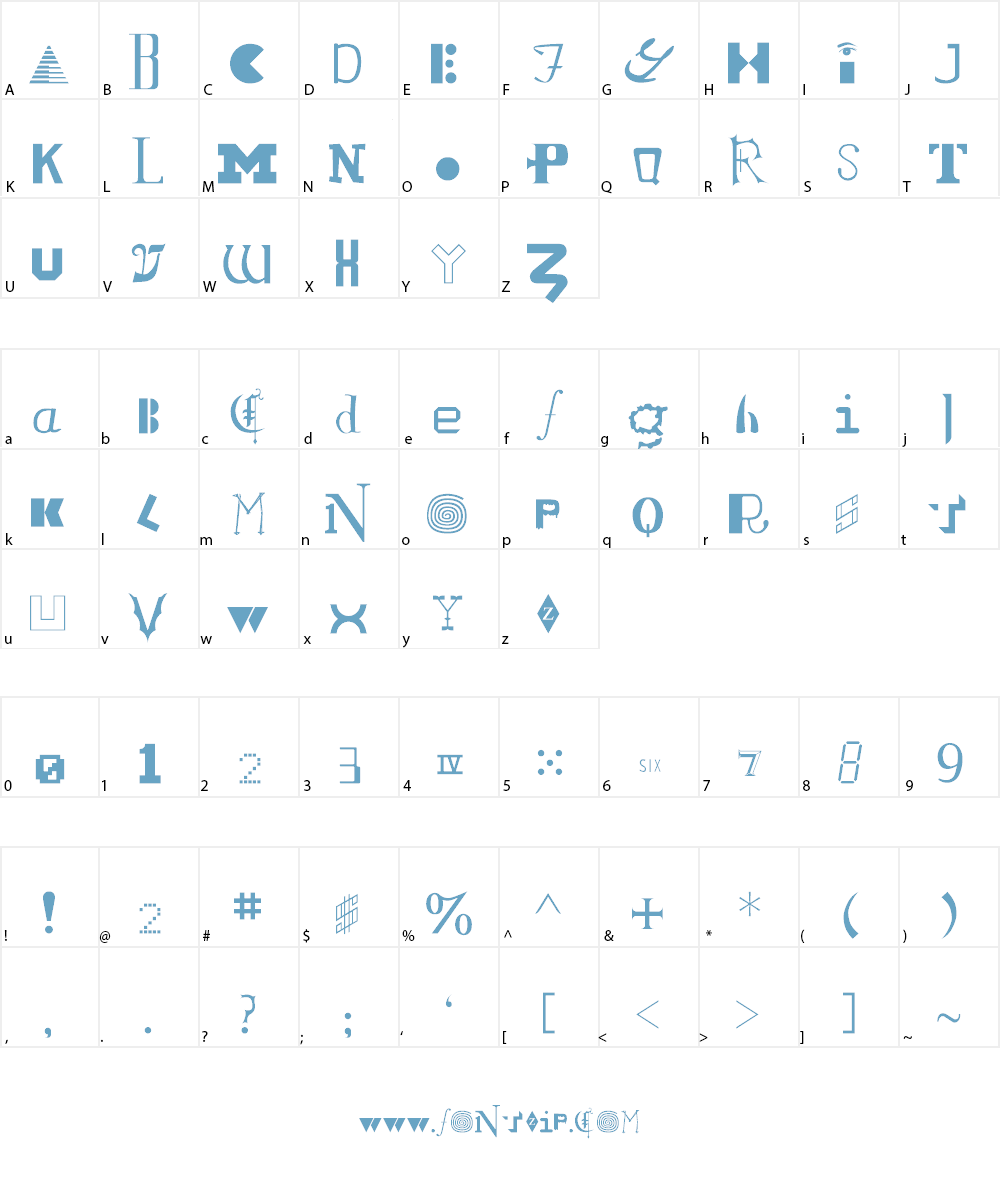
In this font I attempted to create each letter and number in a
different style. Many were invented completely off the top of my
head. The ideas for some came from a book on calligraphy. And
many were inspired by the amazing variety of fonts I found on the
web.